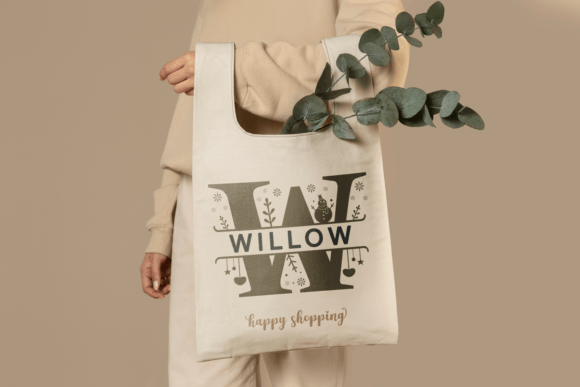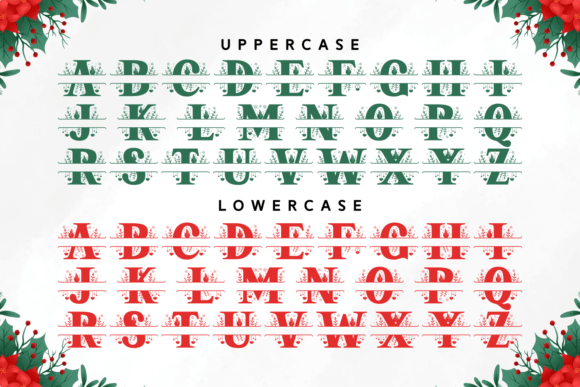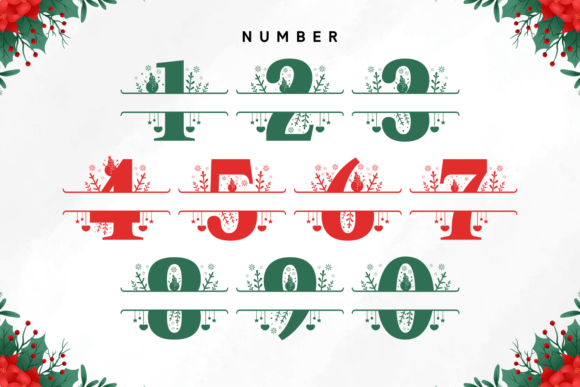
Introduction to Merinda Font
Merinda is a dazzling decorative monogram font, featuring lovely ornaments.
Fall in love with its authentic feel and use it to create gorgeous wedding invitations, beautiful stationary art, eye-catching social media posts, and cute greeting cards .